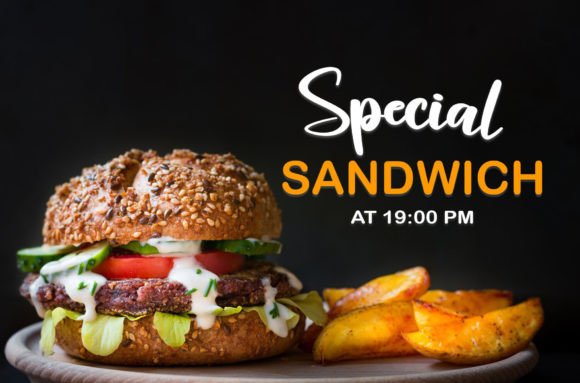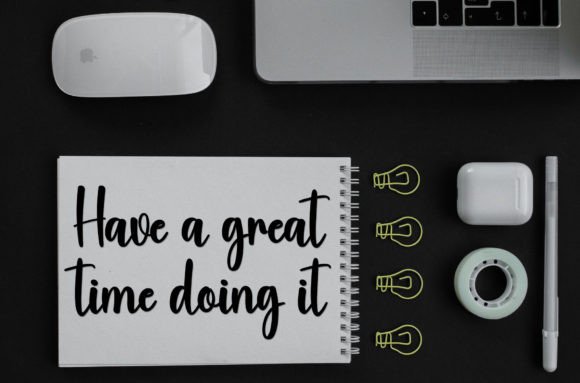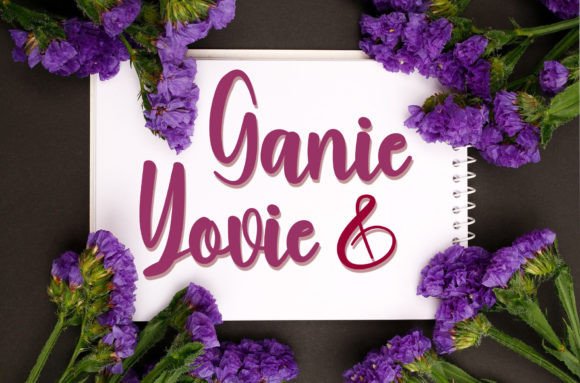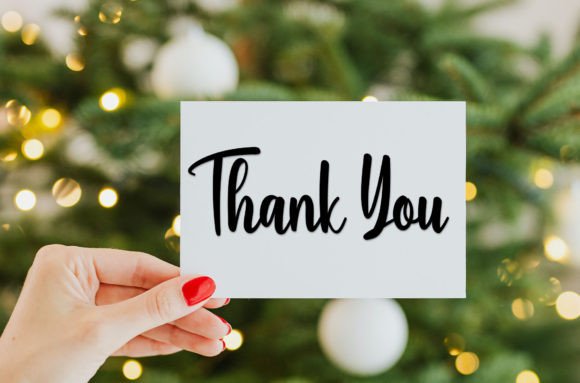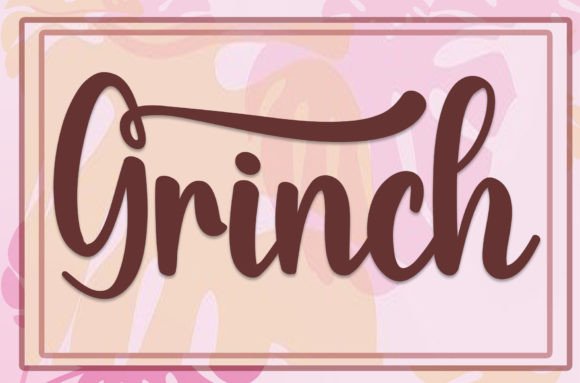
Introducing Grinch Font: A Timeless Classic with a Modern Twist
In the world of typography, few fonts have managed to capture the essence of both classic elegance and modern sophistication. Grinch Font, however, is an exception. This stylish handwritten font brings together the best of both worlds, offering a contemporary atmosphere with impeccable form. Inspired by timeless classic calligraphy, Grinch Font is designed to elevate the beauty of your projects with its balanced and varied approach.
The Inspiration Behind Grinch Font
Grinch Font draws its inspiration from the classic calligraphy of yesteryears, yet it infuses it with a modern twist. This results in a font that is not only elegant but also highly versatile. The design process involved meticulous attention to detail to ensure that each letterform exudes a sense of sophistication and fluidity. The result is a font that feels both nostalgic and refreshingly contemporary.
Key Features of Grinch Font
- Contemporary Atmosphere: Grinch Font boasts a modern aesthetic that makes it perfect for a wide range of design projects, from branding and advertising to packaging and digital media.
- Impeccable Form: The font’s design emphasizes clarity and legibility without compromising on style. Each character is crafted to contribute to the overall harmony of the text.
- Balanced and Varied: Grinch Font offers a range of weights and styles, allowing designers to play with hierarchy and emphasis in their work. This variability ensures that the font can adapt to different contexts and requirements.
- Handwritten with Precision: Despite its modern feel, Grinch Font retains the personal touch of handwritten typography. It brings warmth and character to any project, making it stand out.
Use Cases for Grinch Font
Grinch Font’s versatility makes it suitable for a multitude of applications. Here are some scenarios where this font truly shines:
- Branding and Logotypes: The unique blend of classic and modern elements makes Grinch Font an excellent choice for logos and brand identities that aim to convey sophistication and approachability.
- Advertising and Marketing Materials: Whether it’s billboards, flyers, or digital ads, Grinch Font captures attention with its stylish appeal, making it ideal for marketing campaigns.
- Packaging Design: For product packaging, Grinch Font offers a way to stand out on shelves with its distinctive and elegant look.
- Digital Media: In the realm of digital content, Grinch Font enhances user experience with its readability and aesthetic appeal, making it perfect for websites, blogs, and social media graphics.
Why Choose Grinch Font?
In a sea of fonts, Grinch Font stands out for several reasons:
- Unique Aesthetic: It offers a fresh take on traditional calligraphy, making it a valuable addition to any designer’s toolkit.
- High Versatility: Its range of applications ensures that Grinch Font can be used across various projects, offering great value.
- Easy to Read: Despite its stylized nature, Grinch Font maintains high readability, ensuring that messages are conveyed clearly.
Grinch Font is more than just a typeface; it’s a design statement. With its roots in classic calligraphy and its branches reaching into modern design sensibilities, it offers a unique blend of elegance and approachability. Whether you’re a designer looking to elevate your projects or a crafter seeking the perfect font for your creations, Grinch Font is an excellent choice. Its ability to balance beauty with functionality makes it a valuable asset in the world of design.
Discover the potential of Grinch Font in your next project and experience the fusion of timeless elegance with contemporary style.